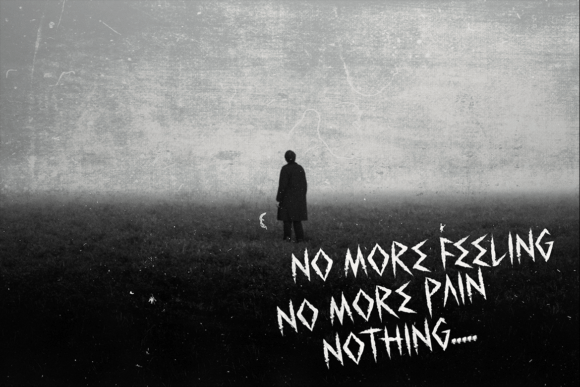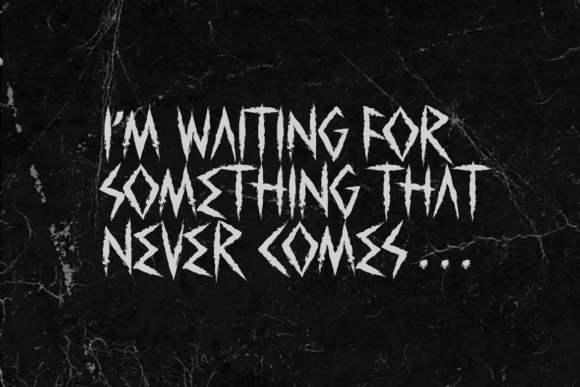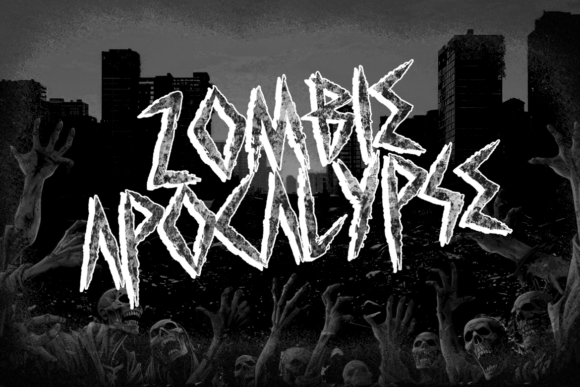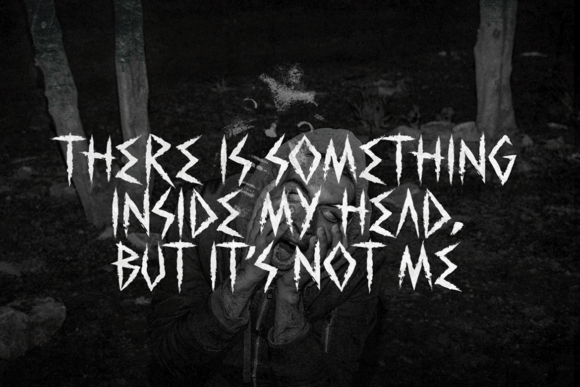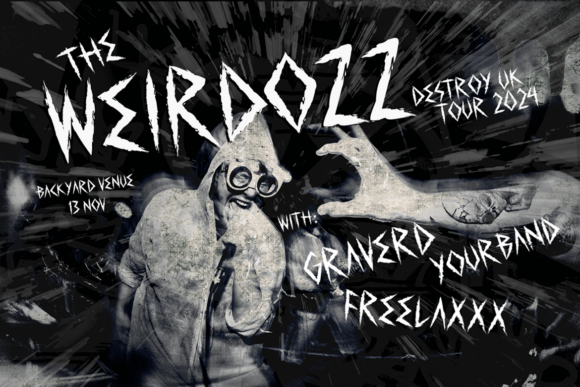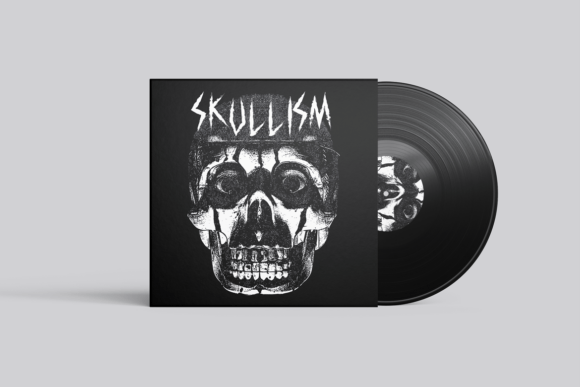
Unleash the Power of Edgy Design with Despaired Font
In the realm of typography, few fonts have managed to capture the essence of raw, unbridled creativity like Despaired. This uniquely crafted font is an ode to the stark beauty of knife scratches, transforming them into a daringly distinct typeface that exudes an aura of uncanny eeriness. If you’re a designer or crafter looking to infuse your projects with a touch of the bold and unconventional, Despaired is the ideal choice.
The Birth of Despaired: A Story of Raw Creativity
Despaired font is more than just a collection of letters; it’s an experience. Born from the rugged, irregular lines and gritty textures of knife scratches, this font embodies the raw energy of unbridled creativity. Each character is meticulously crafted to reflect the imperfections and uniqueness of hand-scratched marks, giving Despaired its unmistakable edge.
Characteristics of Despaired Font
- Ragged, Irregular Lines: Despaired’s lines are intentionally rough and unpolished, lending an organic, hand-crafted feel to any design.
- Gritty Textures: The font’s texture is reminiscent of rough, scratched surfaces, adding depth and a tactile quality to your projects.
- Uncanny Eeriness: Despaired’s unique aesthetic evokes a sense of mystery and intrigue, perfect for projects that require a touch of the unknown.
Perfect for Horror-Themed Illustrations and Adventurous Artwork
Despaired font is tailor-made for designers who dare to venture into the unconventional. Its raw, edgy aesthetic makes it an excellent fit for:
- Horror-Themed Illustrations: Add a touch of eeriness to your horror-themed projects, such as book covers, posters, or social media graphics.
- Adventurous Artwork: Infuse your artwork with a sense of boldness and daring, perfect for projects that require a unique, eye-catching typography.
- Experimental Typography: Push the boundaries of typography with Despaired’s unconventional design, ideal for experimental projects that demand something new and exciting.
Why Choose Despaired Font?
Despaired font isn’t just a choice; it’s a statement. By incorporating this uniquely crafted font into your designs, you’re making a bold declaration of creativity and individuality. Here are just a few reasons why Despaired stands out:
- Unparalleled Uniqueness: Despaired’s raw, edgy aesthetic sets it apart from more traditional fonts, guaranteeing your designs will stand out.
- Versatility: This font can be used in a wide range of projects, from horror-themed illustrations to adventurous artwork and experimental typography.
Tips for Using Despaired Font Effectively
To get the most out of Despaired font, consider the following tips:
- Experiment with Sizes: Despaired’s unique aesthetic is amplified by size; experiment with different font sizes to achieve the desired effect.
- Mix and Match: Combine Despaired with other fonts to create a striking contrast and add visual interest to your designs.
- Play with Colors: Despaired’s gritty texture and irregular lines respond well to bold, vibrant colors; experiment with different color schemes to enhance the font’s edgy aesthetic.
Despaired font is more than just a typeface; it’s an experience. With its raw, edgy aesthetic and uniquely crafted characters, this font is poised to revolutionize the world of design. Whether you’re a seasoned designer or a crafter looking to push the boundaries of creativity, Despaired is the perfect choice. So, dive into the world of edgy design and unleash the power of Despaired font in your next project.